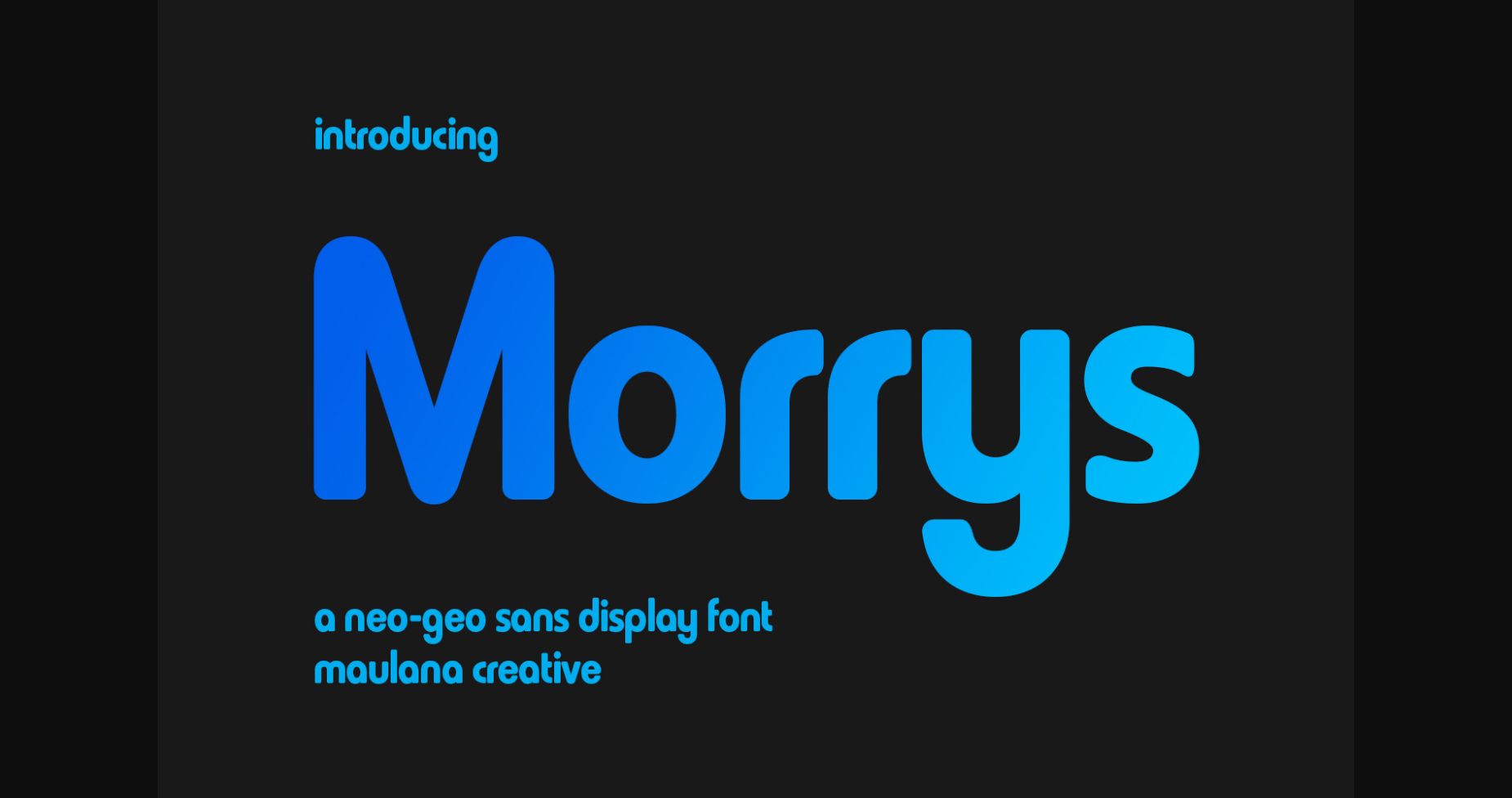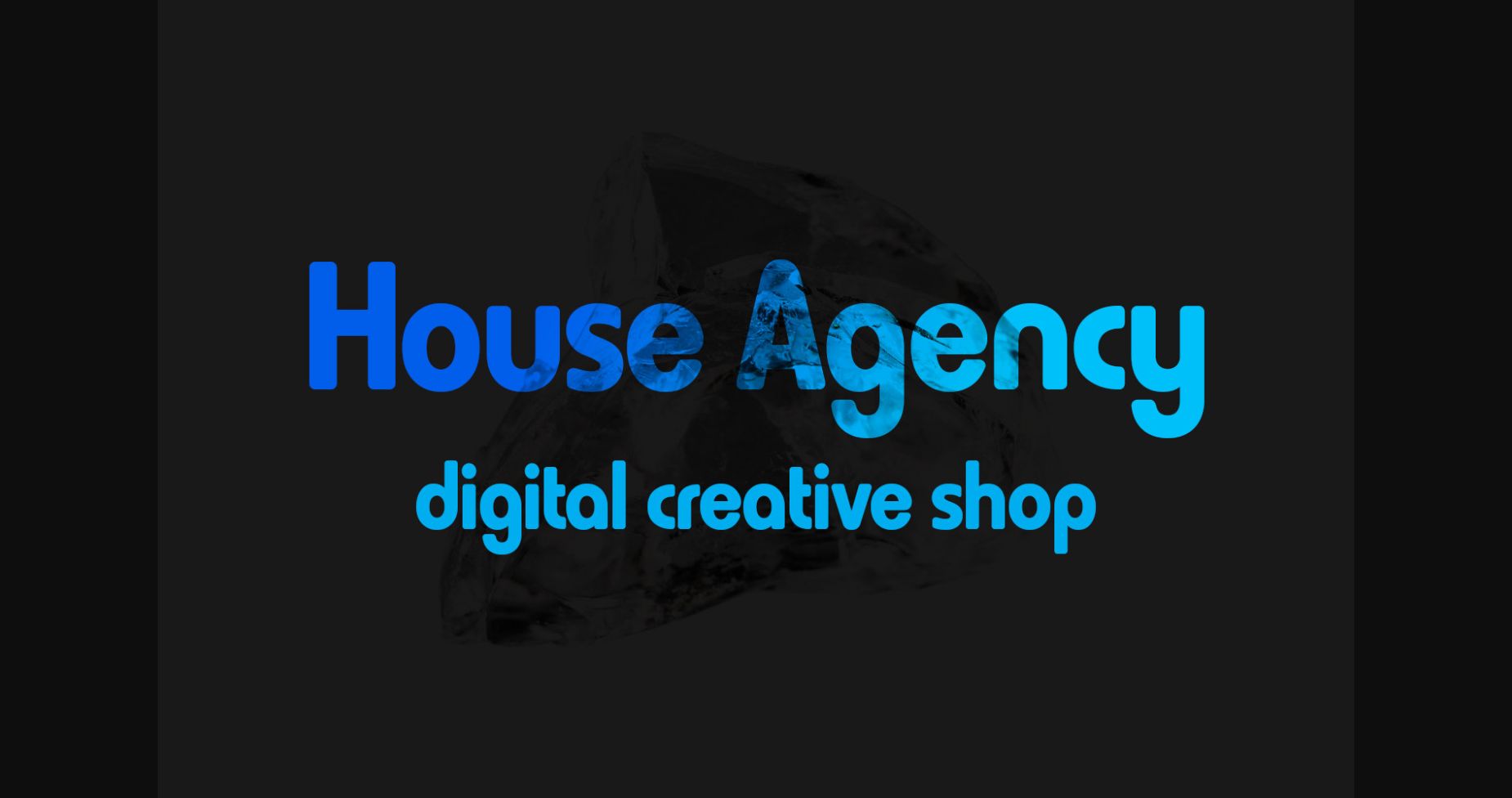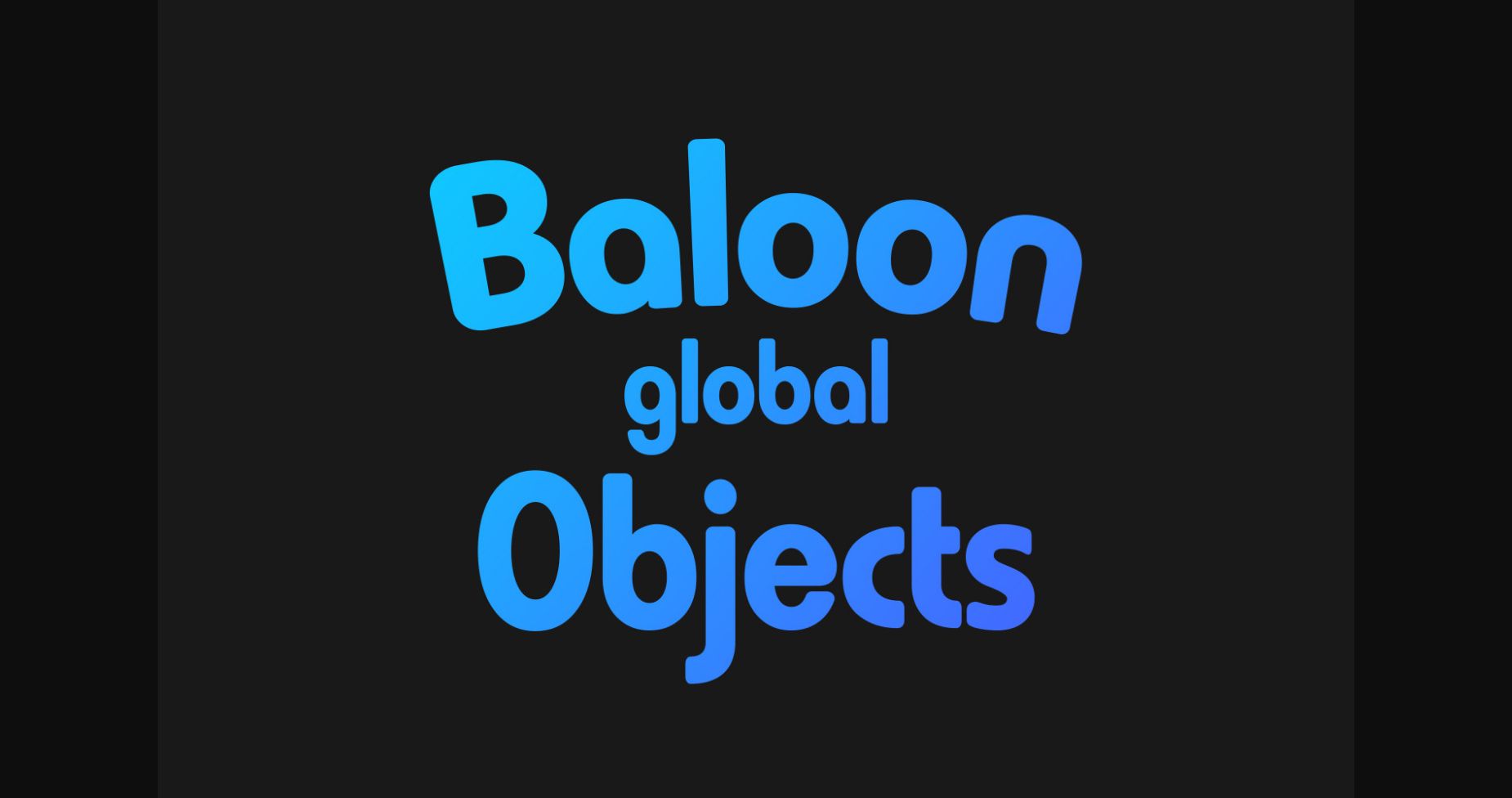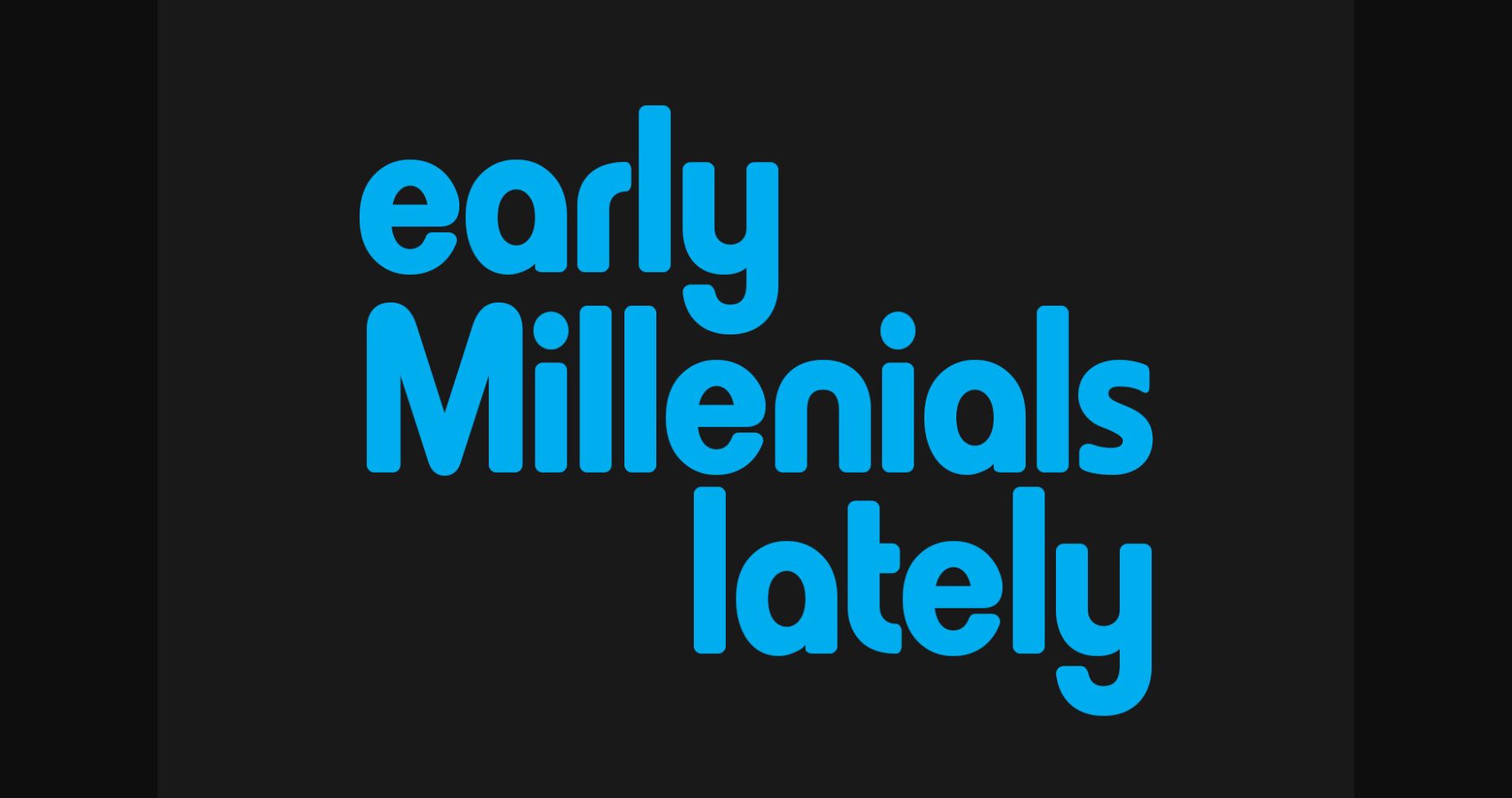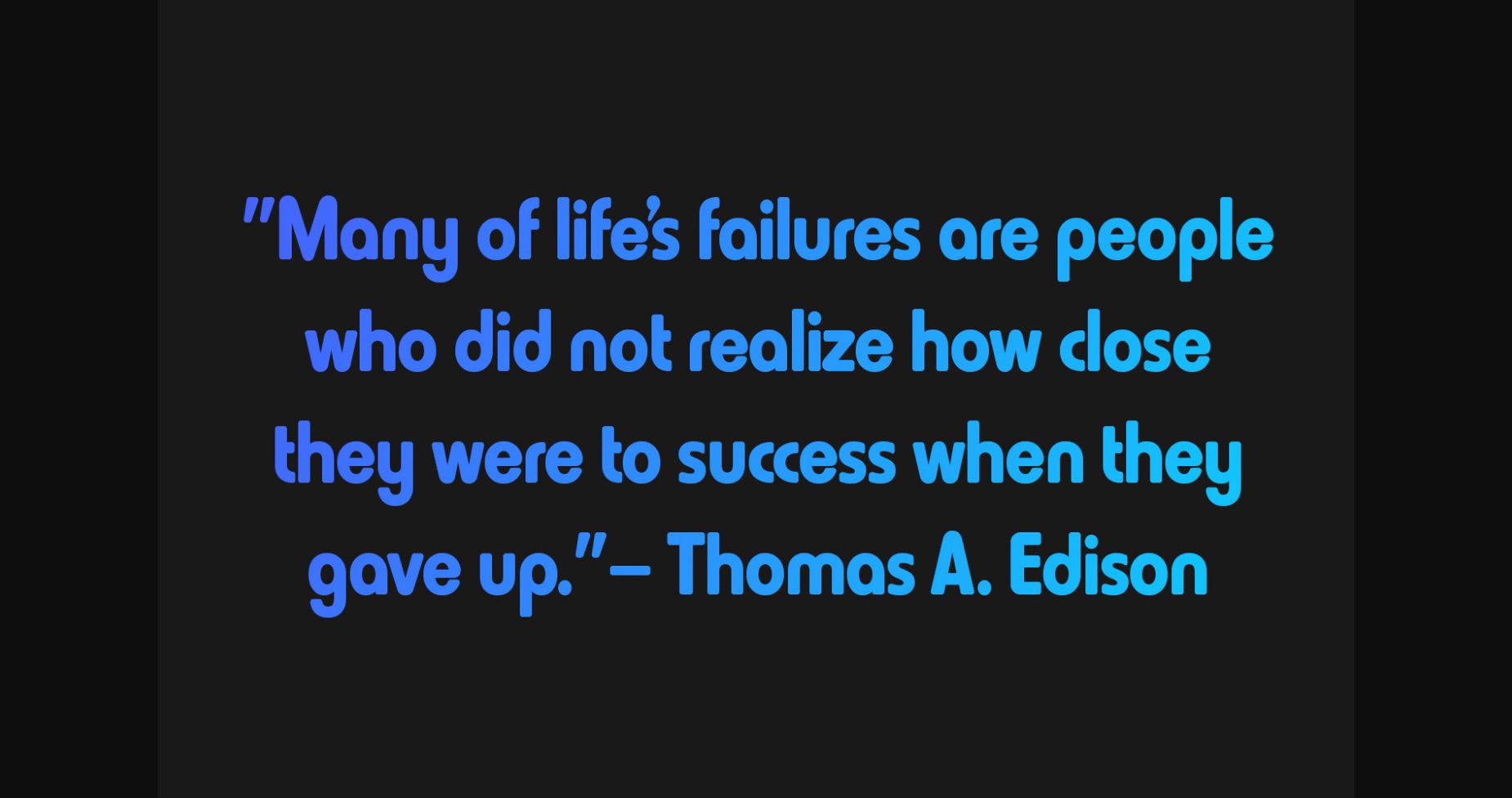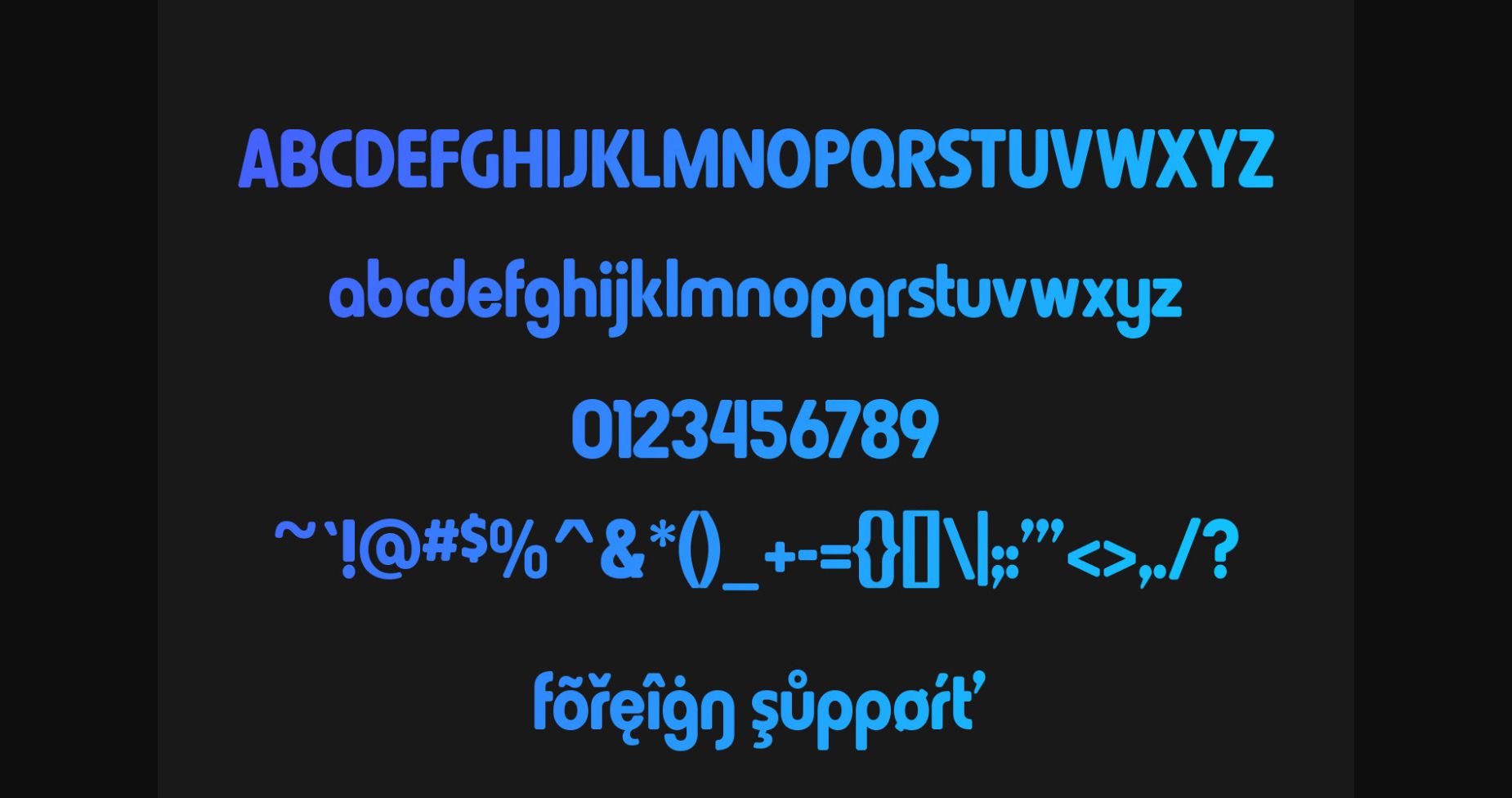
About Morrys Font
Morrys is a Neo semi geometric sans display font. Bold stroke, fun character with a bit of ligatures and alternates. To give you an extra creative work. Morrys font support multilingual more than 100+ language. This font is good for logo design, Social media, Movie Titles, Books Titles, a short text even a long text letter and good for your secondary text font with script or serif. Make a stunning work with Morrys font.